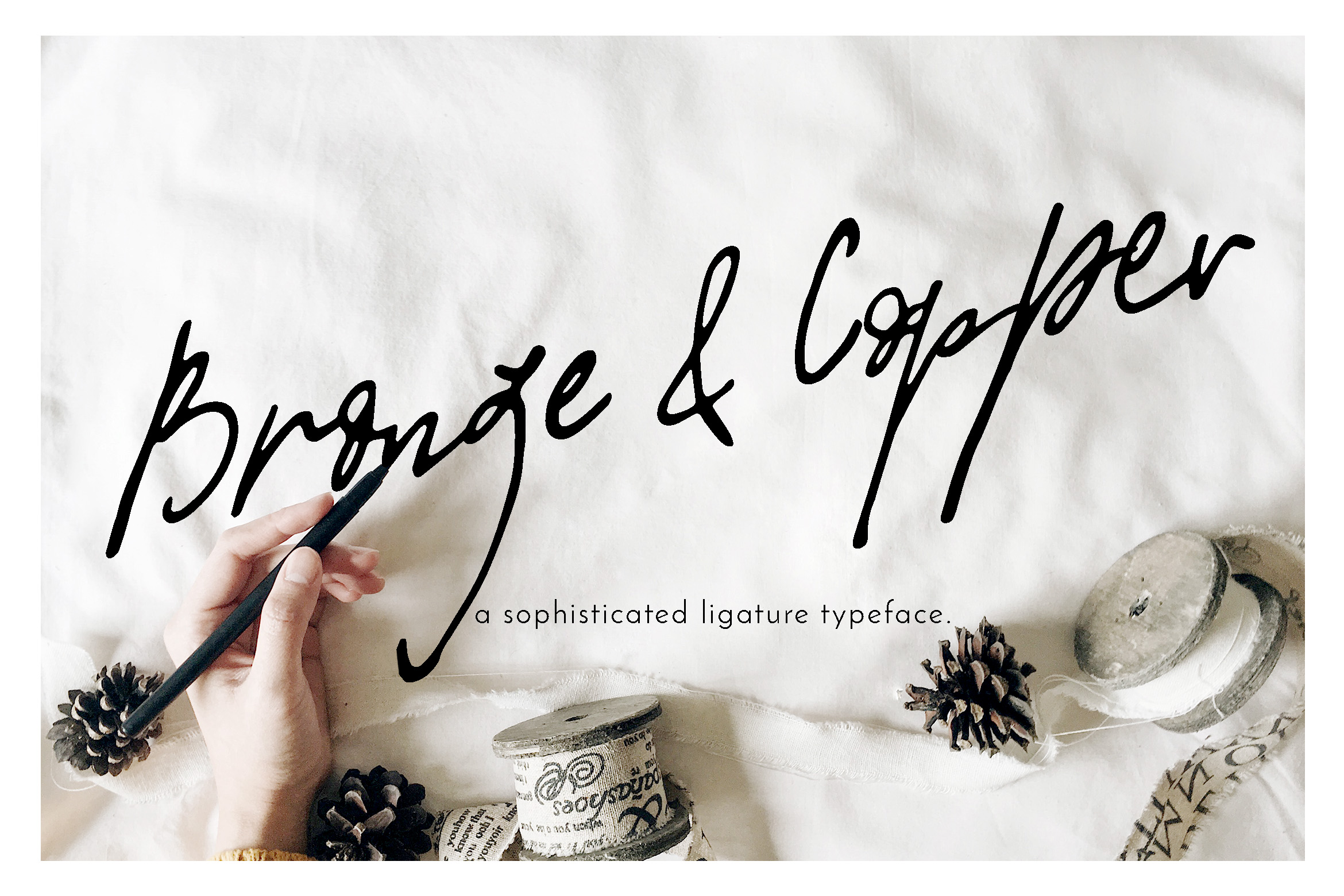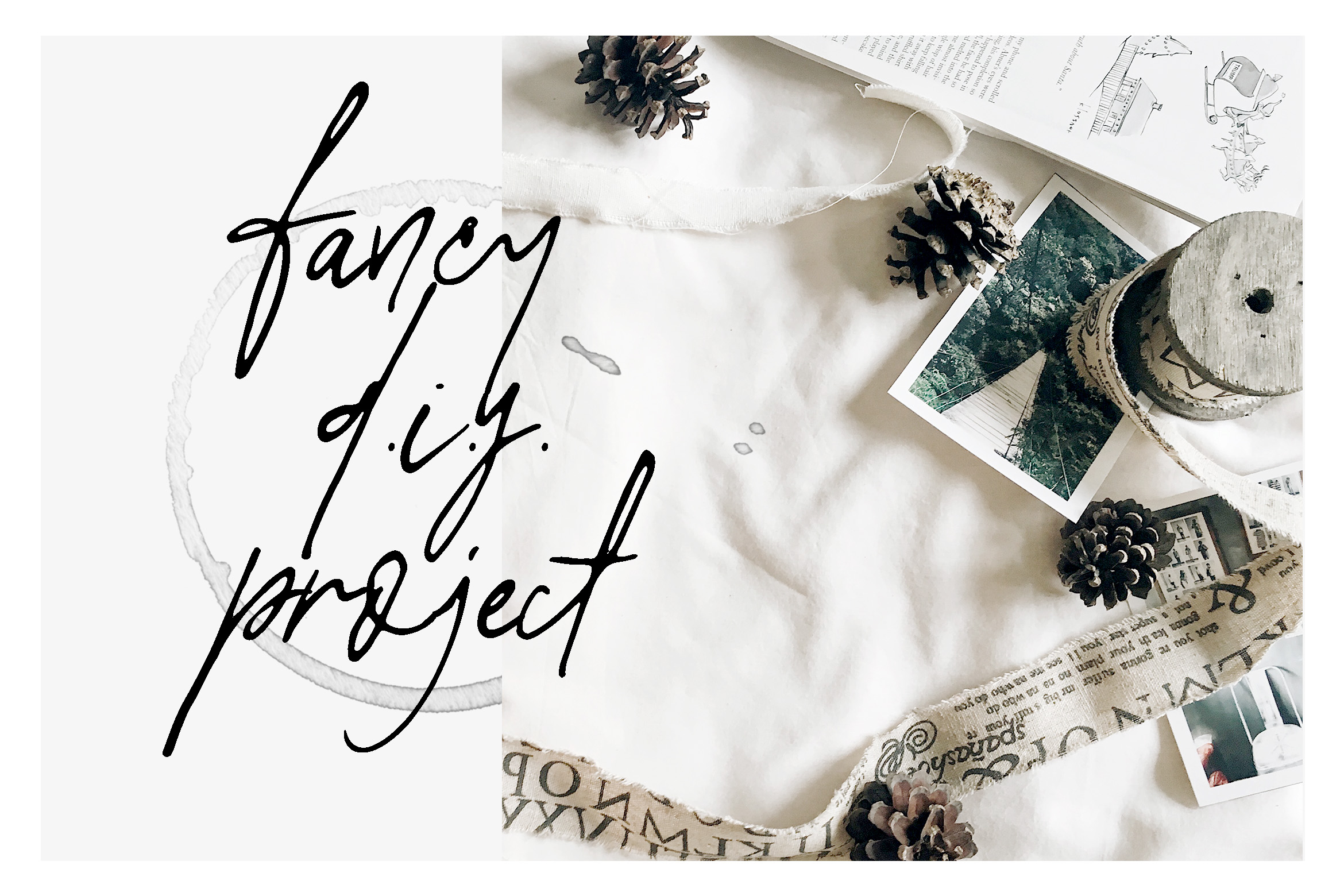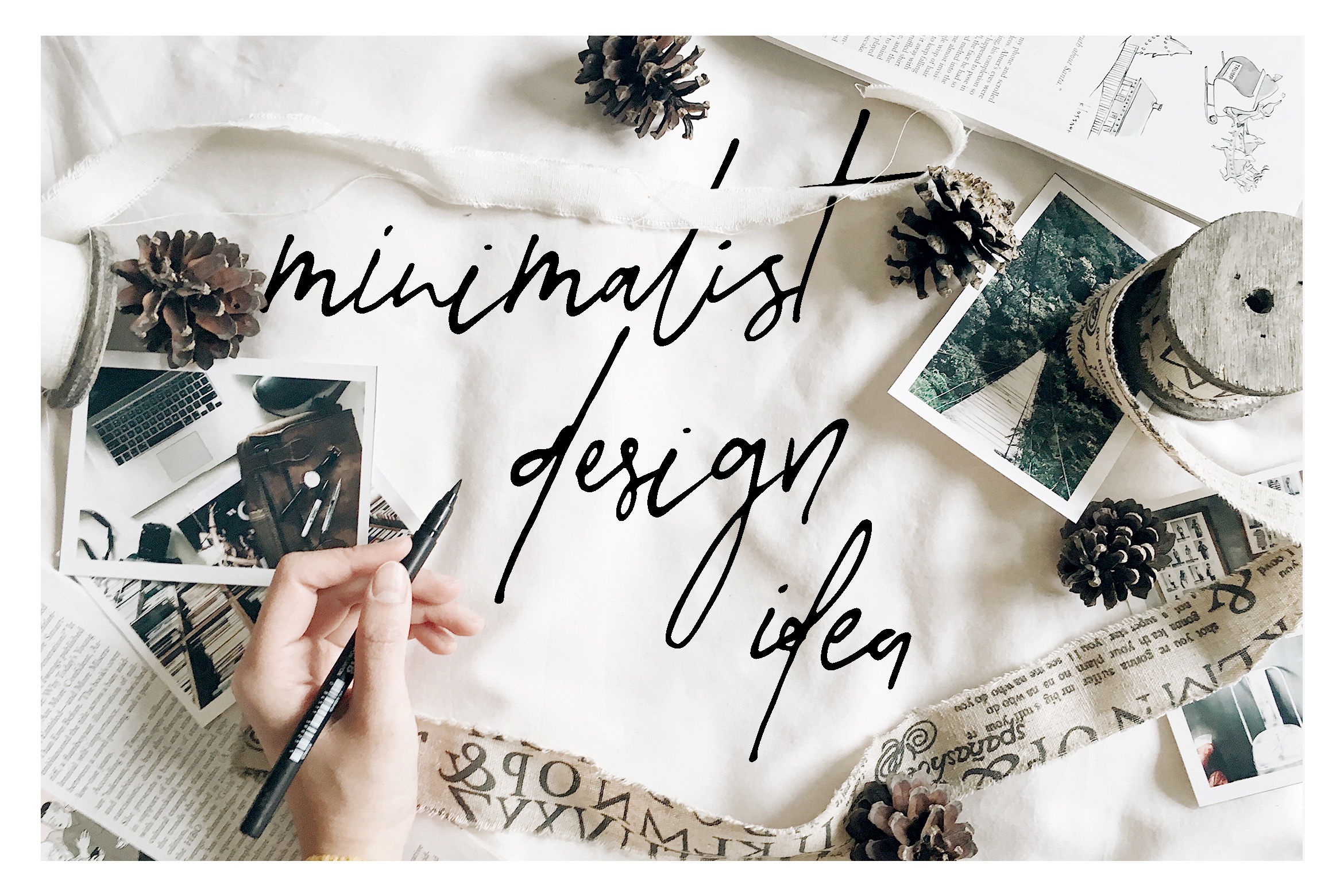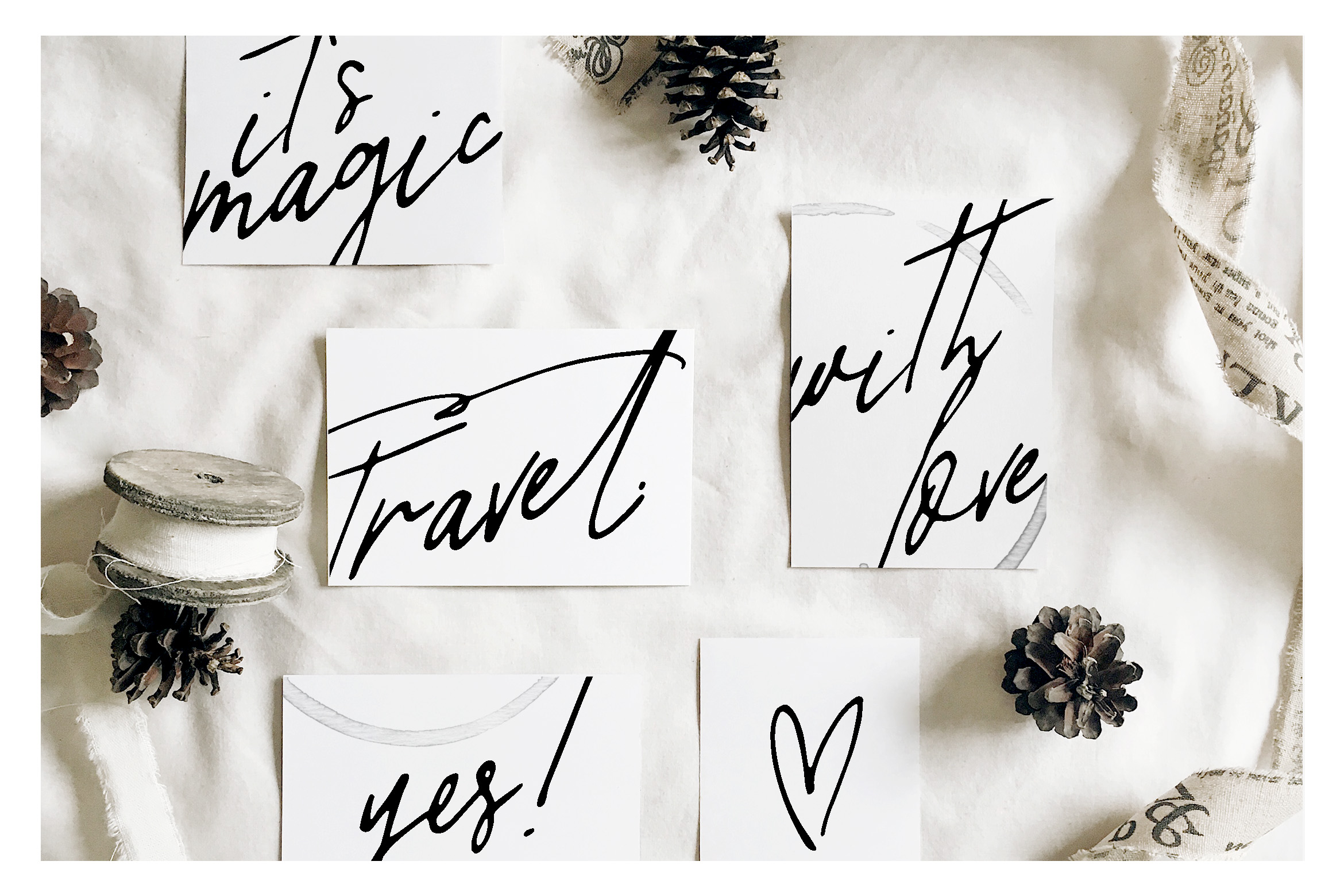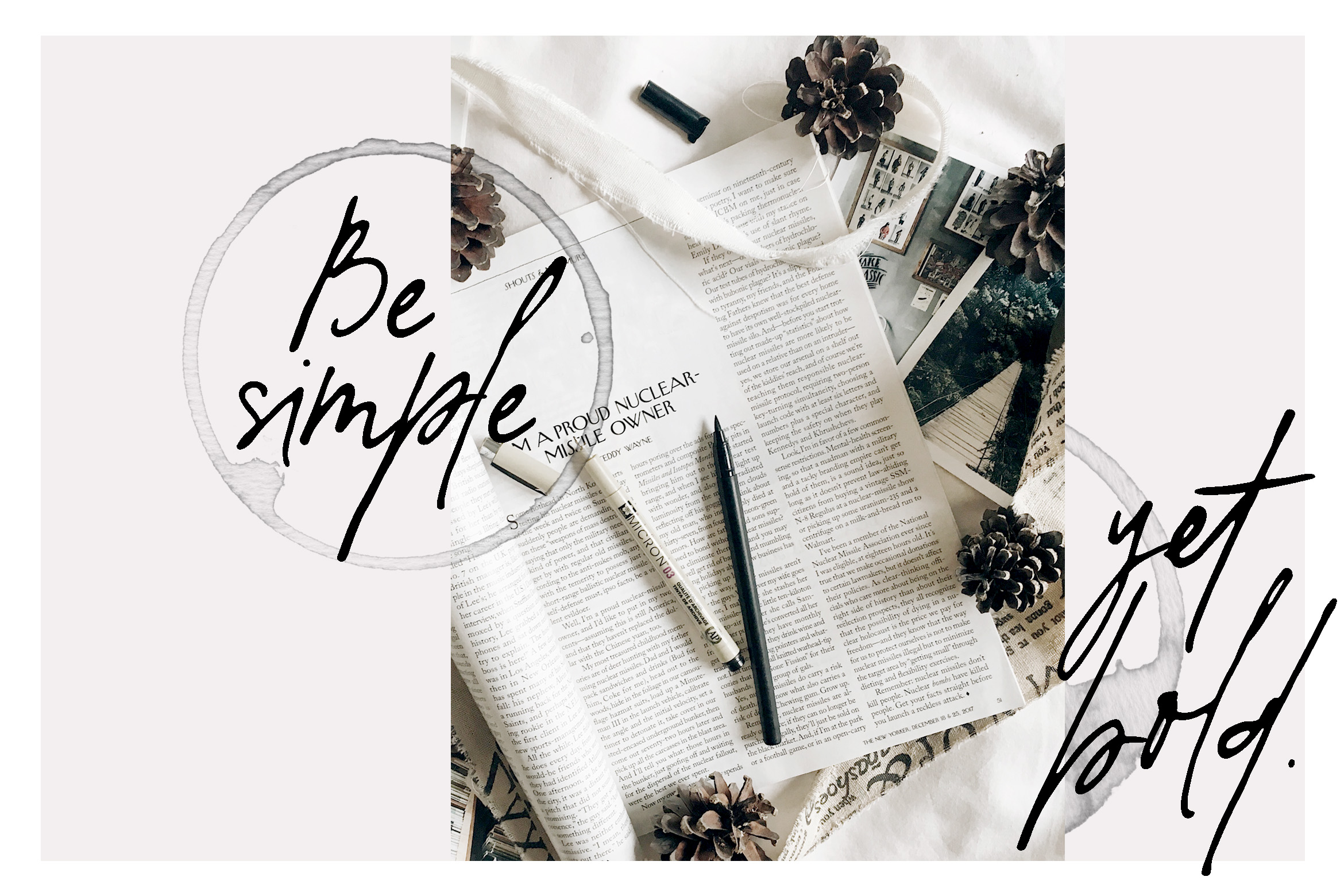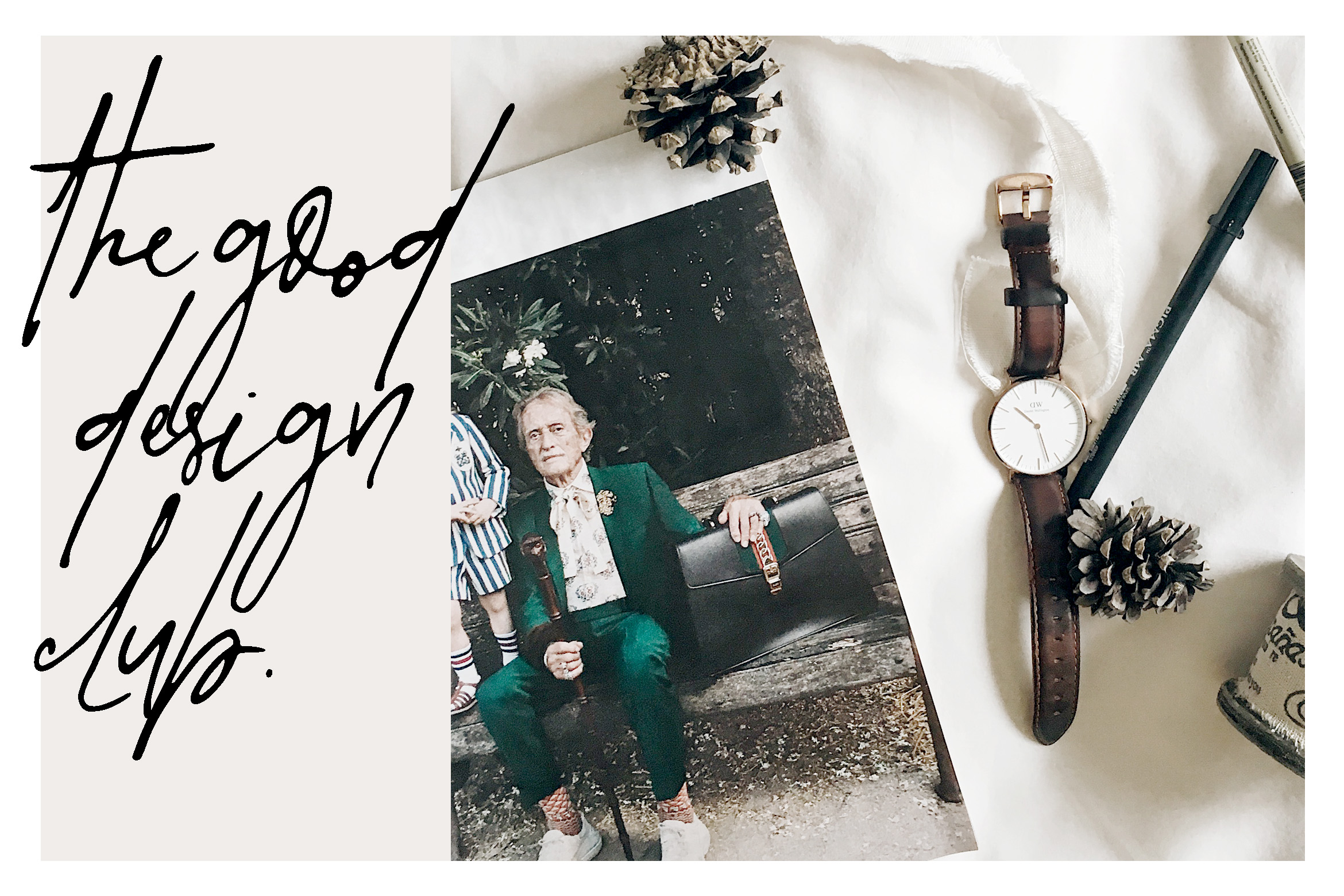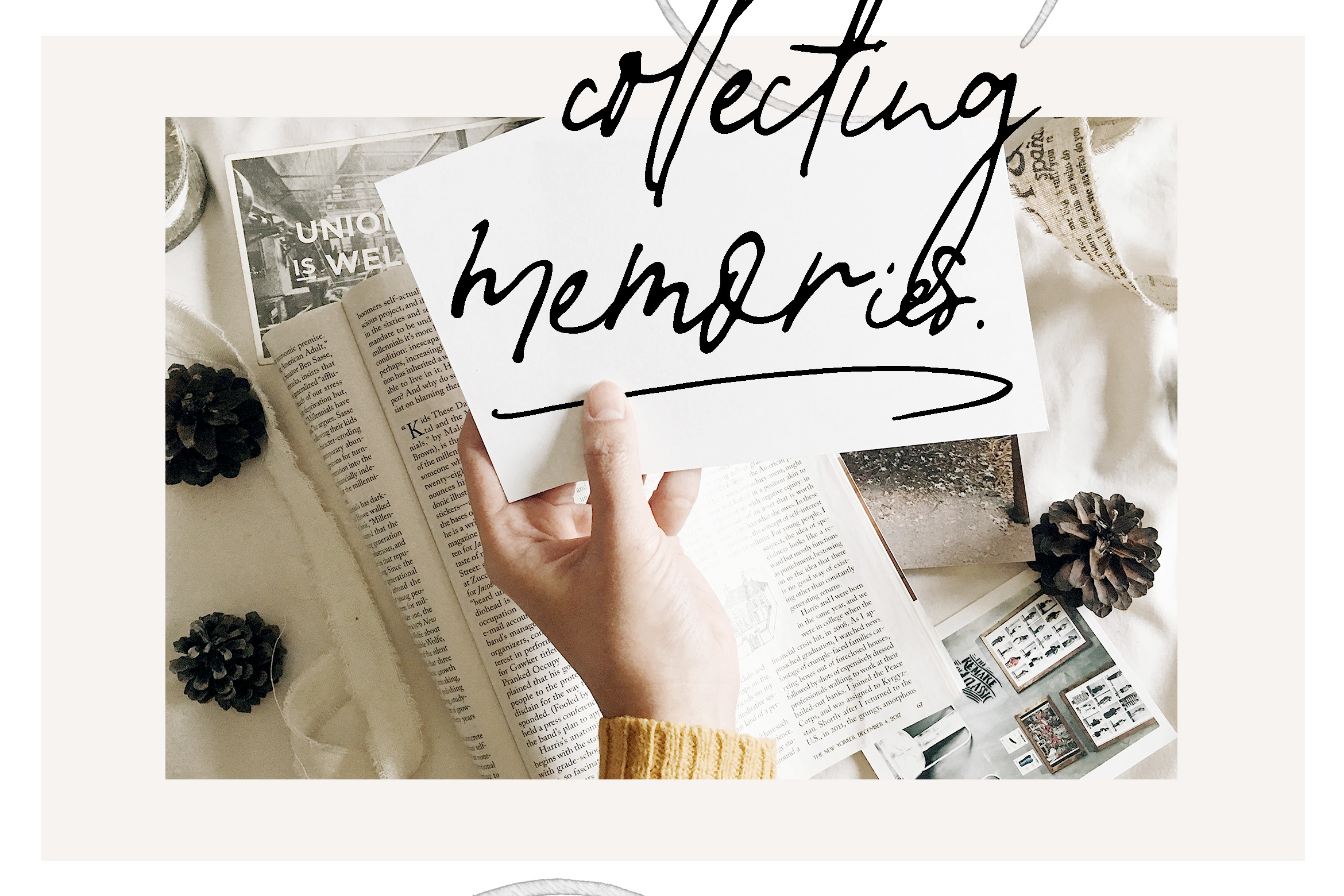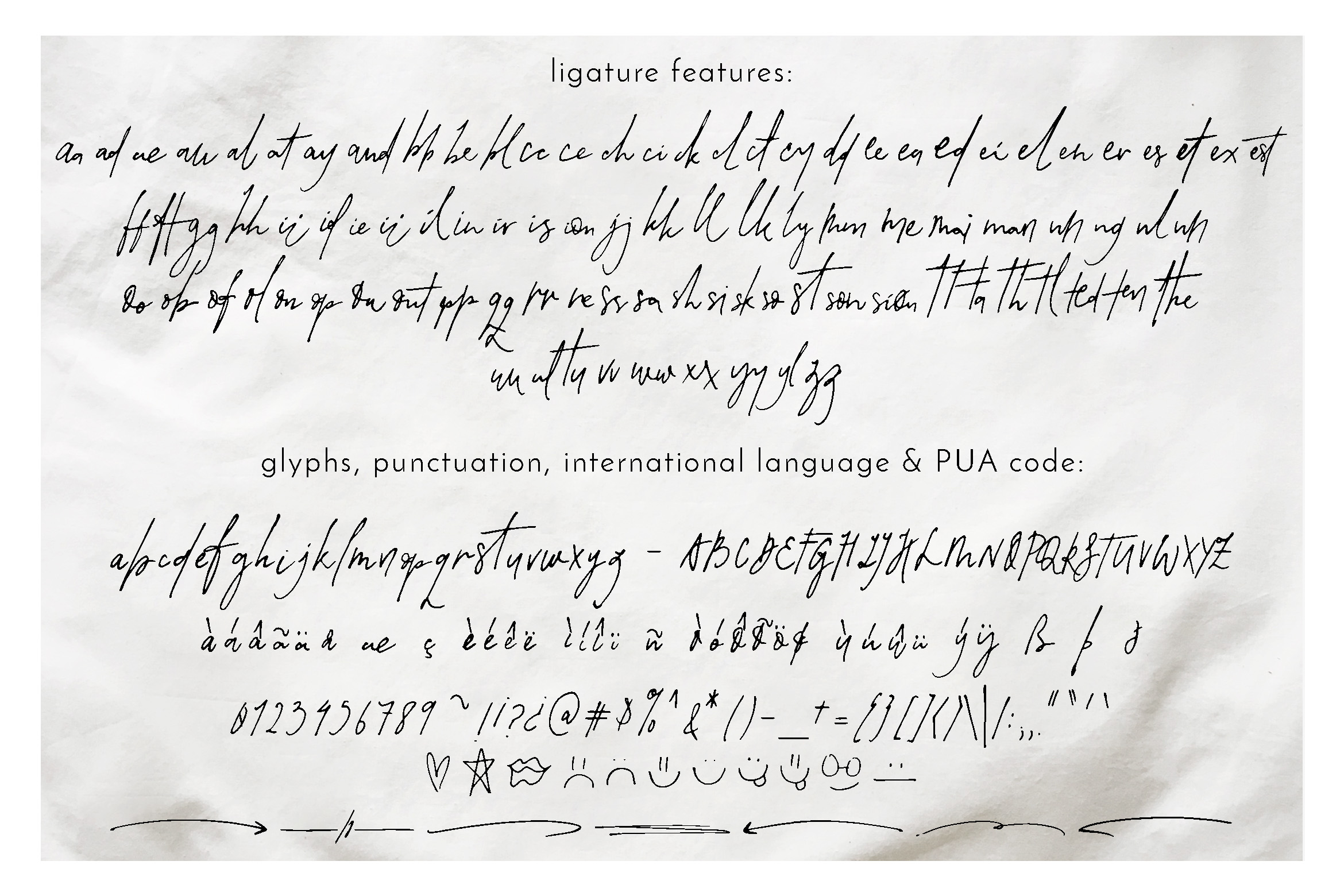
Bronze & Copper Font
About Bronze & Copper Font
Bronze & Copper is a sophisticated typeface, handwritten with a variety of style choices and ligatures for truly unique looking type based designs. This signature styled font is great across a wide range of project types.